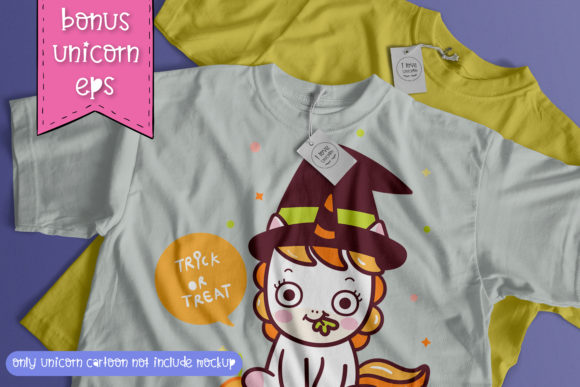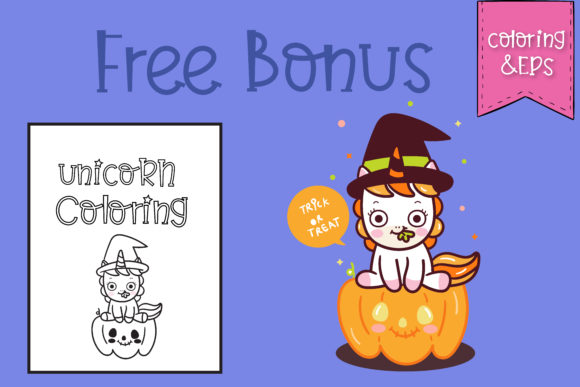
Believe in Unicorn Font
db-ku.com - Script & Handwritten -- Believe In Unicorn is a sweet, soft hand-lettered font. It brings cute Unicorns cartoon doodles and a coloring page. Get inspired by it’s cheerful feel and brighten up your crafting projects!